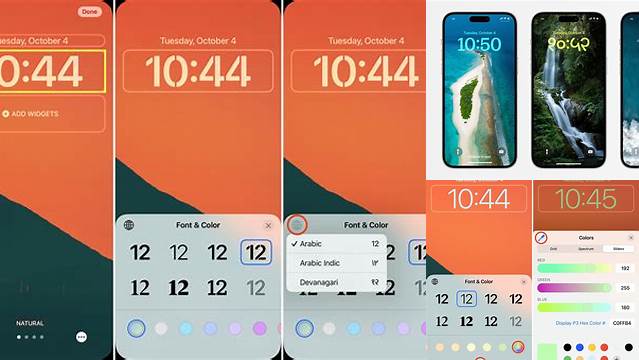
Hey guys, are you tired of the same old clock font on your iPhone? Do you crave a fresh look that reflects your unique style? Well, you're in luck! This comprehensive guide dives deep into the world of iPhone clock font downloads, helping you transform your device's appearance. We'll explore everything from the best font options to the step-by-step installation process. Get ready to personalize your iPhone's clock and make it truly your own! Let's start by understanding why you might even want to change your iPhone clock font and the benefits it brings.
Why Change Your iPhone Clock Font?
Let's be real, the default font on your iPhone's clock is pretty standard. It does the job, right? But for those of us who love to customize, it can feel a little… bland. Changing your iPhone clock font download is a fantastic way to add personality and style to your device. It's like giving your iPhone a mini makeover! Think about it: you glance at your clock dozens of times a day. Wouldn't it be awesome to see a font that you absolutely love every single time? Plus, it’s a subtle way to express your individuality and make your iPhone stand out from the crowd. Beyond aesthetics, there are also practical reasons. Some fonts are simply more readable than others, especially in different lighting conditions. Imagine having a clear, crisp font that’s easy on the eyes, even when you're half-asleep! Moreover, a customized font can boost your overall user experience. It's the little things that make a big difference, and a personalized clock font is a testament to your unique style and attention to detail. Switching up your font is a fun and easy way to breathe new life into your iPhone's interface, making it feel fresh and exciting. You might be surprised how much a simple font change can impact your daily enjoyment of your device. So, are you ready to explore how to bring this customization to life? Let's dive into the exciting world of iPhone clock font downloads and see what options are available. Remember, choosing the perfect font is all about what resonates with you. There's a style out there for everyone – whether you're into minimalist designs, bold statements, or something in between. The goal is to create an interface that's both functional and visually appealing. So, buckle up as we explore how to personalize your iPhone clock and make it an integral part of your digital lifestyle. Get ready to discover a whole new level of customization!
Finding the Perfect iPhone Clock Font
Okay, so you're in! You're ready to dive into the world of iPhone clock font downloads, but where do you even begin? Don't worry, I've got you covered. The first step is to explore your options and find the perfect font that matches your style. There are tons of resources out there, offering a wide variety of fonts to choose from. One great place to start is online font libraries. Websites like Dafont, Font Squirrel, and Google Fonts have an enormous selection of free fonts that you can browse. These sites allow you to preview the fonts and see how they look. When browsing, consider the font's style. Do you prefer a clean, modern look or something more classic? Are you looking for a bold, attention-grabbing font or something more subtle and elegant? Think about how the font will look on your lock screen and within your apps. Also, ensure the font is readable. Some fonts may look great, but if they're difficult to read at a glance, they won't be very practical. Experiment with different font weights, sizes, and styles to find what works best for you. Another option is to check out apps specifically designed for font customization. Some apps provide a curated selection of fonts ready to be installed on your iPhone. These apps often offer a simplified installation process, making it easier to get started. Keep an eye out for apps that support iPhone clock font downloads directly. Remember to also consider the technical aspects. Does the font support the characters you need, such as numbers, symbols, and other languages? Also, check the font's licensing. Many fonts are free for personal use, but if you plan to use them commercially, you may need to obtain a different license. Finally, when choosing a font, think about how it aligns with your overall style. Does it complement your other customizations? Does it reflect your personality? The best font is one that makes you smile every time you glance at your clock. Take your time, explore the options, and don't be afraid to experiment. The perfect font is out there, waiting for you to discover it! Let's explore now how to install a font.
Top iPhone Clock Font Recommendations
Ready to get inspired? Let's explore some top iPhone clock font downloads that are sure to add a touch of personality to your device! When selecting the perfect font, consider both aesthetics and readability. After all, you want something that's not only stylish but also easy on the eyes. Here are a few recommendations to get you started.
- Roboto: This is a popular sans-serif font known for its clean and modern look. It's highly readable, making it a great choice for your clock display. Roboto is often used in Android interfaces, but it looks fantastic on an iPhone as well.
- Open Sans: Another versatile and readable sans-serif font, Open Sans offers a friendly and approachable style. Its open letterforms make it easy to read at a glance, making it perfect for your clock font.
- Lato: A well-balanced and stylish sans-serif font, Lato is known for its warm and friendly appearance. It's a great option if you're looking for a font that's both modern and approachable.
- Montserrat: This is a geometric sans-serif font inspired by the urban typography of the Montserrat neighborhood in Buenos Aires. It provides a contemporary look that’s both bold and stylish.
- Helvetica Neue: A classic and widely used sans-serif font. While it's a default font on many systems, it remains a solid choice because of its timeless design and excellent readability.
These are just a few suggestions to get you started. The best font for you will depend on your personal preferences. When choosing a font, consider factors such as the font's style, readability, and how it complements your overall aesthetic. Test out different fonts to see how they look on your lock screen and in your widgets. It’s also a great idea to preview the font in different sizes to ensure that it remains legible. Experiment with different font weights and styles to create a look that truly reflects your personality. Remember, the goal is to create an iPhone clock that is both visually appealing and functional. So, have fun experimenting and discovering your favorite fonts! With a little creativity, you can transform your iPhone clock into a stylish and personalized element of your digital experience. Let's go to the next section to discuss tips and tricks.
Tips and Tricks for Optimizing Your Clock Font Experience
Alright, you've got your iPhone clock font download and it is installed. Now, let's explore some tips and tricks to optimize your clock font experience. This way you can get the most out of your new customized look! First, regularly check for updates. App developers often release updates to their apps to improve performance, add new features, or fix bugs. Make sure you keep your customization apps up to date to take advantage of the latest improvements. Also, experiment with different font sizes and weights. Sometimes, a slight adjustment can make a big difference in readability. Try different sizes and weights to find the perfect balance between aesthetics and functionality. Test your chosen font in various lighting conditions. What looks great in bright sunlight might be hard to see in a dimly lit room. Ensure your font is readable in different environments. If you're using a widget, optimize the widget's placement on your lock screen. Position it in a place that's easily visible at a glance. Consider how your chosen font interacts with the background. If you're using a dark font, make sure it contrasts well with your lock screen background, and vice versa. If you're using a custom font with widgets, periodically check for compatibility issues. With iOS updates, some widgets may need to be updated to function correctly. By staying up to date and following these tips, you can ensure that your customized clock font continues to look great and function seamlessly. Have fun experimenting, refining your setup, and personalizing your iPhone to reflect your unique style! By using these tips and tricks, you will enhance your user experience and enjoy the new look of your iPhone. Keep exploring different fonts, and don't be afraid to experiment with new combinations to discover your perfect clock font setup. Ready to conclude?
Conclusion: Embrace the Power of iPhone Clock Font Customization
So, there you have it, guys! You've made it through the complete guide to iPhone clock font downloads. We've covered everything from choosing the perfect font to the installation process and tips for optimizing your experience. Now you're equipped with the knowledge to give your iPhone a unique and personalized look. Remember, customization is all about expressing yourself and making your device truly yours. Don't be afraid to experiment, try new things, and find the fonts that speak to you. The world of iPhone customization is vast and exciting. Keep exploring new apps, fonts, and features to make your iPhone reflect your unique style. By embracing the power of customization, you'll not only enhance your user experience but also make your device stand out from the crowd. Happy customizing, and enjoy your new and improved iPhone clock! Your device is a reflection of you. Make it shine.